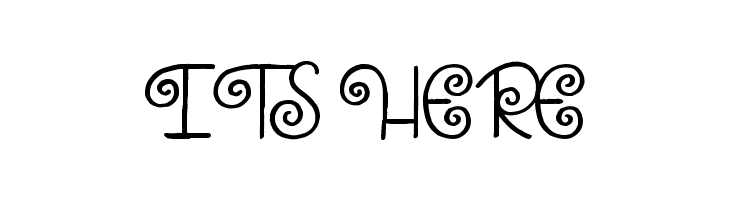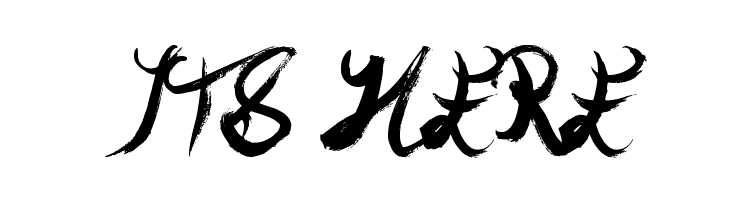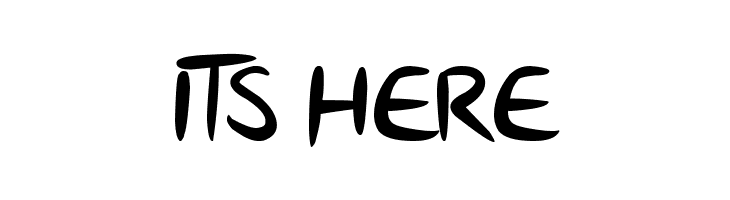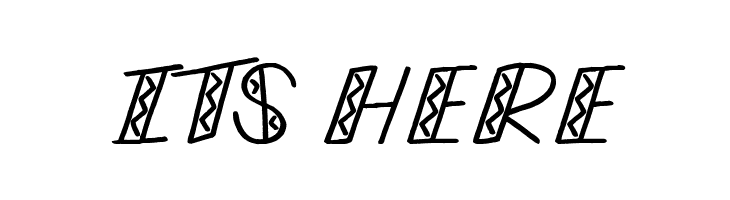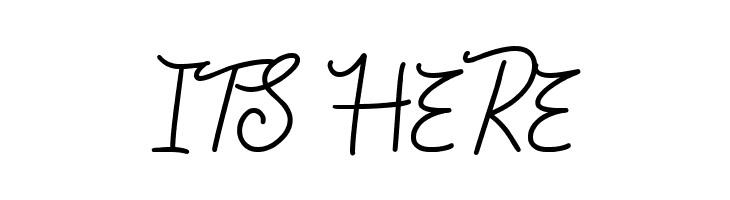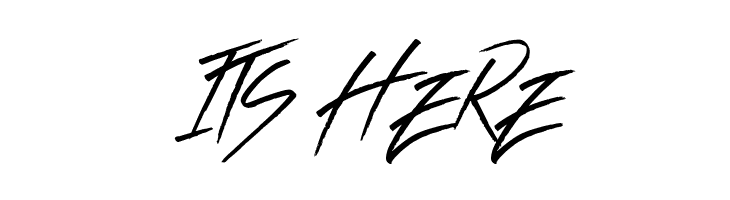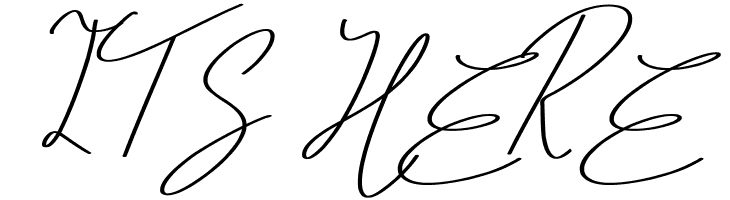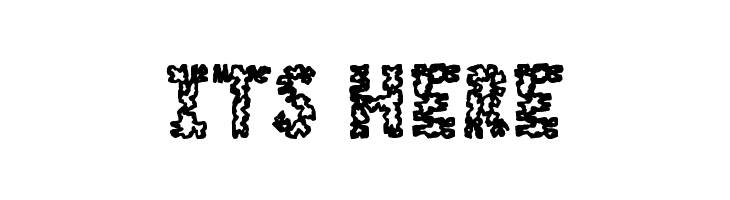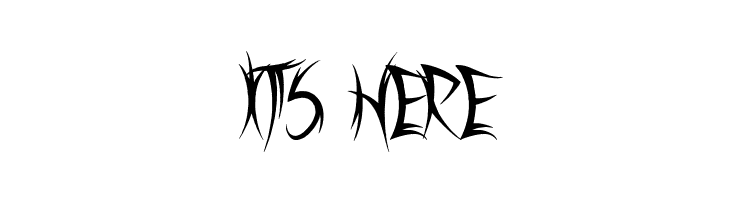
A bold, brush-style font with dynamic, expressive strokes.
An expressive script font with fluid, artistic letterforms and a calligraphic style.
A dynamic, handwritten font with sharp, angular strokes and a lively appearance.
A bold, brush-style font with dynamic, expressive strokes.
A slender, hand-drawn font with an elegant and whimsical style.
A rugged, textured font with a primitive, stone-carved appearance.
A bold, brush-style font with dynamic, expressive strokes.
A gritty, urban font with a distressed, graffiti-inspired style.
A bold, distressed font with a gritty, urban style.
A bold, brush-style font with an urban, graffiti-like appearance.
A bold, brush-style font with an energetic, street-art vibe.
A bold, hand-drawn font with a textured, scribble-like pattern.
A bold, energetic script font with a hand-drawn, graffiti-like style.
A lively, cursive script font with smooth, flowing strokes.
A casual, friendly handwritten font with smooth, flowing lines and a slightly slanted style.
A tall, narrow font with a modern and sleek design.
A playful, heart-themed font perfect for romantic and creative projects.
A whimsical and decorative font with swirling embellishments.
A sharp, aggressive font with blade-like serifs and dynamic strokes.
A geometric, angular font with tall, narrow letterforms and a modern aesthetic.
A playful, hand-drawn font with a zigzag pattern, ideal for creative projects.
A bold, hand-drawn font with dynamic, irregular strokes and an expressive style.
An artistic, brush-stroke font with a calligraphic flair.
An ornate and decorative script font with elegant loops and swirls.
A flowing, cursive font with elegant, interconnected strokes.
A playful, hand-drawn font with a scribble texture and bold, rounded characters.
A bold, expressive brush-style font with dynamic, textured strokes.
A bold, brush-style font with expressive, hand-painted strokes.
A dynamic, brush-style script font with bold, expressive strokes.
A dynamic, brushstroke-style font with an artistic and expressive flair.
A bold, dynamic script font with fluid, brush-like strokes.
A bold, expressive handwritten font with dynamic strokes and a textured appearance.
A bold, playful handwritten font with a casual and energetic style.